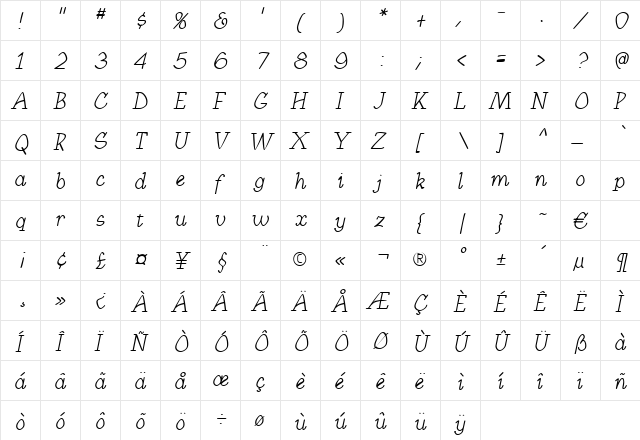
SundsvallItalic Regular
Design Context for SundsvallItalic Typeface
SundsvallItalic is a composed and adaptable typeface that performs quietly and consistently across a wide range of design contexts. Its italic angle brings a sense of urgency and motion to the letterforms.
Pro Tip: Try SundsvallItalic for annotation and caption copy alongside an upright companion — the contrast in angle creates a dynamic but ordered typographic system.